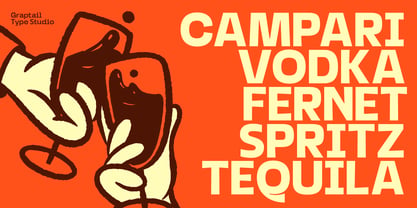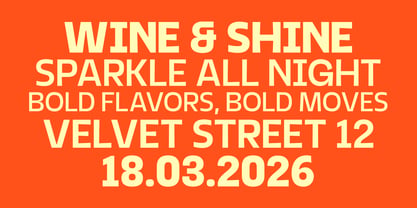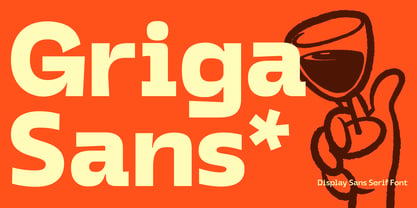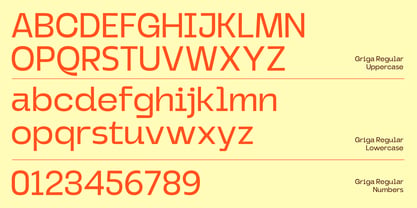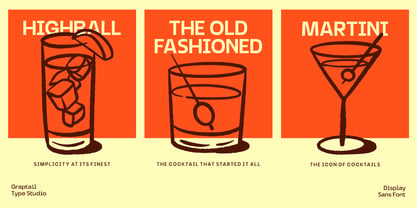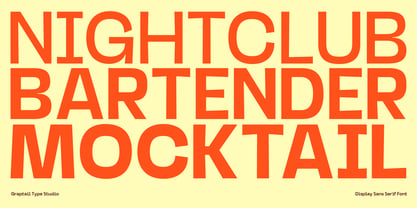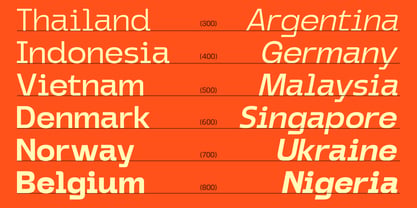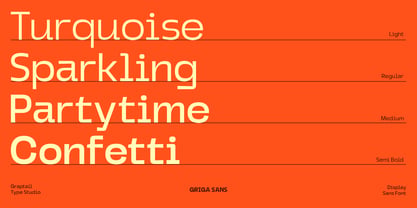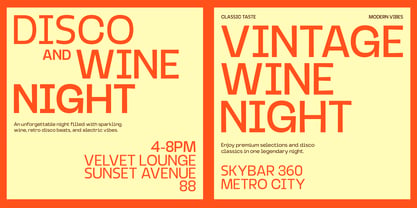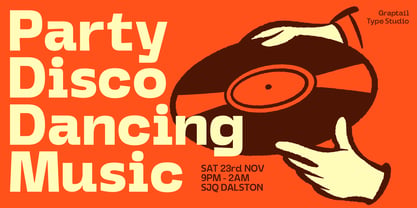
Griga Sans
by Graptail
The Griga Sans Font Family was designed by Teuku Deky Firnanda and published by Graptail. Griga Sans contains 16 styles and family package options. More about this family
Griga Sans is a modern display sans serif font family designed for bold branding, packaging design, and high-impact visual communication. With strong geometric structure and clean letterforms, this typeface delivers a confident and contemporary look for professional designers and global brands. Built as a versatile display font, Griga Sans includes 9 weights from Thin to Black, plus Regular and Italic styles, making it perfect for creating powerful typographic hierarchy in branding systems, advertising, and promotional graphics. Whether you are designing beverage packaging, food & drink labels, movie titles, posters, merchandise, or social media campaigns, Griga Sans provides the flexibility and visual strength needed for standout results.
Designers: Teuku Deky Firnanda
Foundry: Graptail